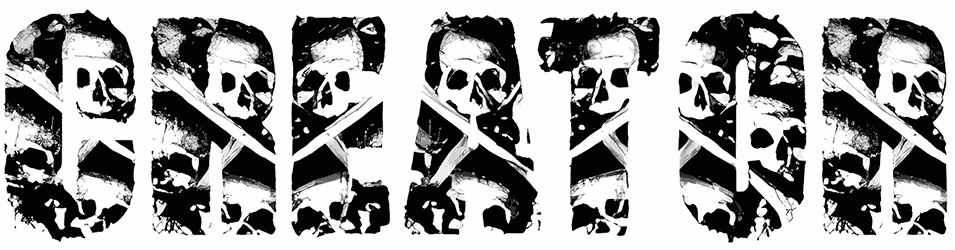
Creator Font
Once in a while, a font gets created that is like nothing else. Creator is one of those fonts, a skeleton font that was designed with bold letters and skulls inside of them.
Two versions, bold and bold italic!